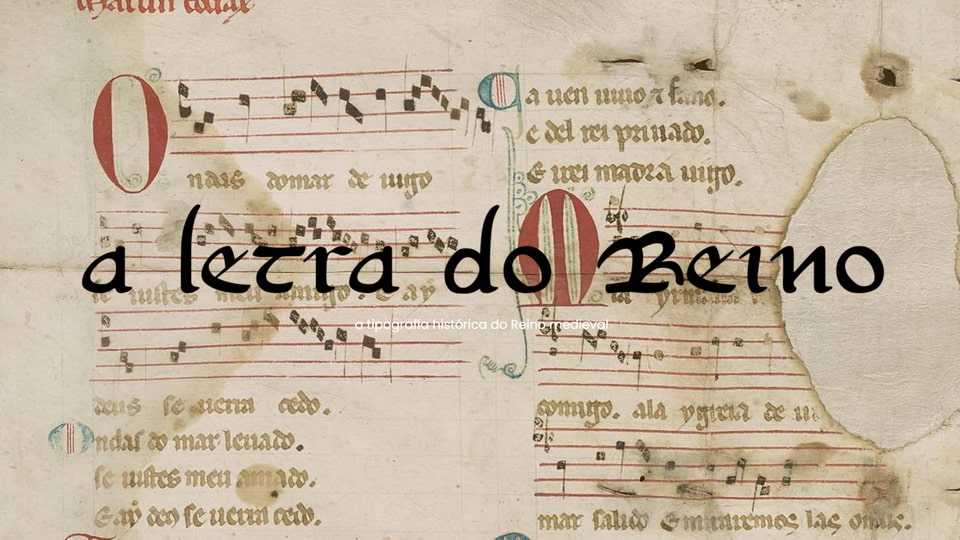
Download A Letra do Reino font, a revival of the historical medieval typography. It rescues and highlights the typographic proposal based on concrete examples from the history of Galician written culture.